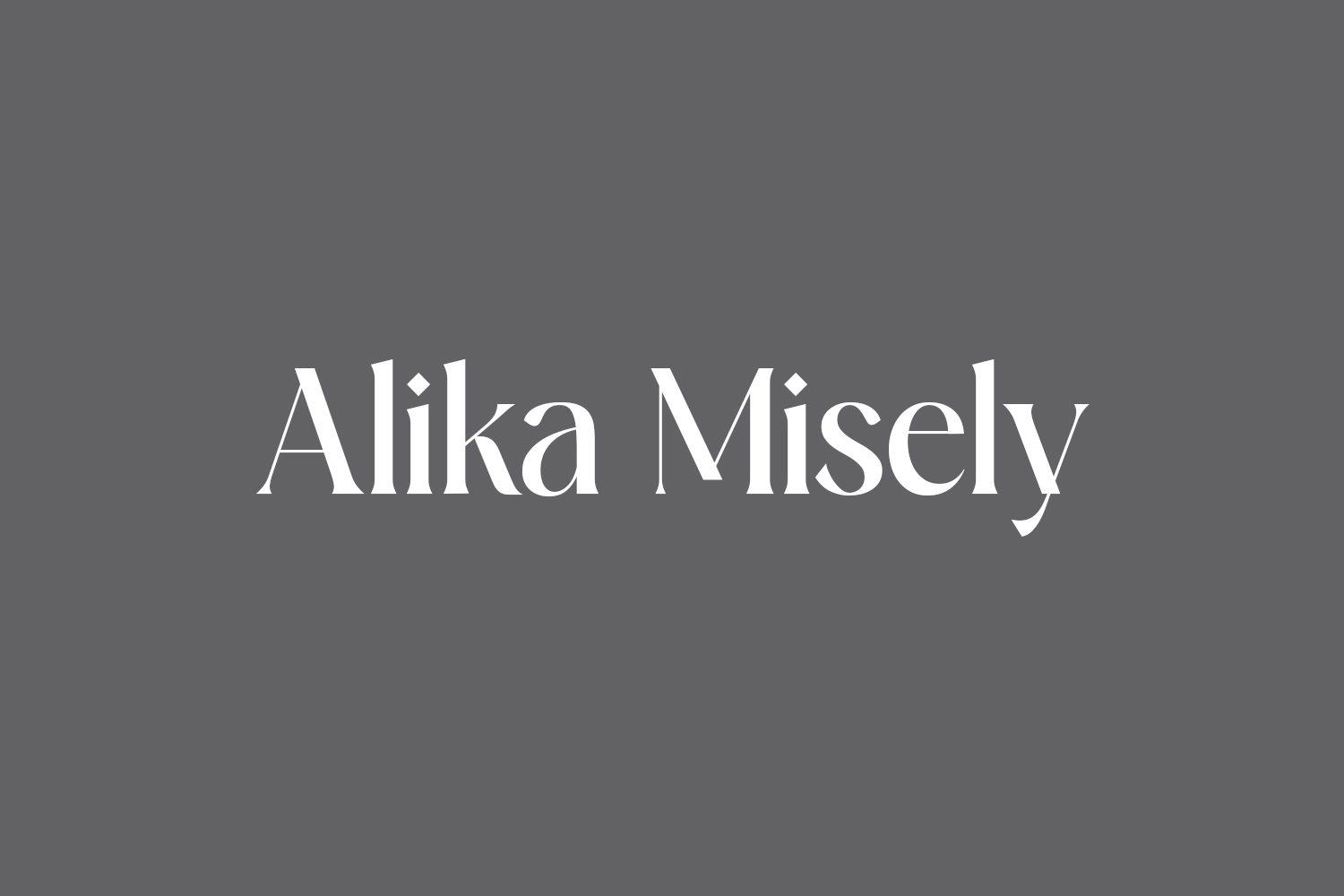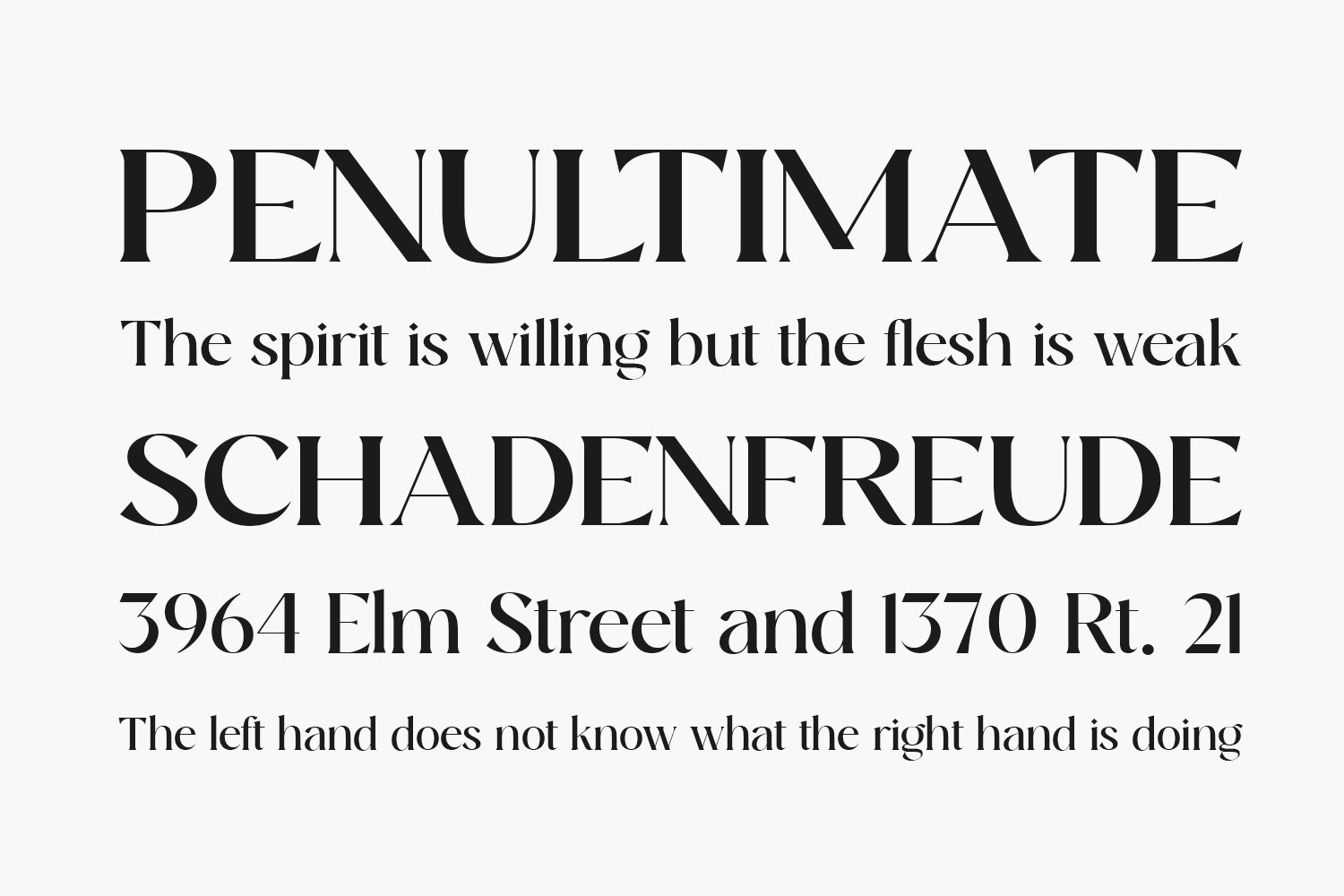
Introducing Free Alika Misely Free Font, a serif font exuding timeless elegance with its classic and feminine characters, adorned with stunning alternates. This versatile font is an ideal choice for a multitude of projects, including logos, branding, invitations, stationery, wedding designs, social media posts, advertisements, printed quotes, product packaging, labels, photography, watermarks, special events, and beyond. Elevate your designs with the refined charm of Alika Misely. Download the font for free if you need it for personal use or purchase the full version for commercial use.